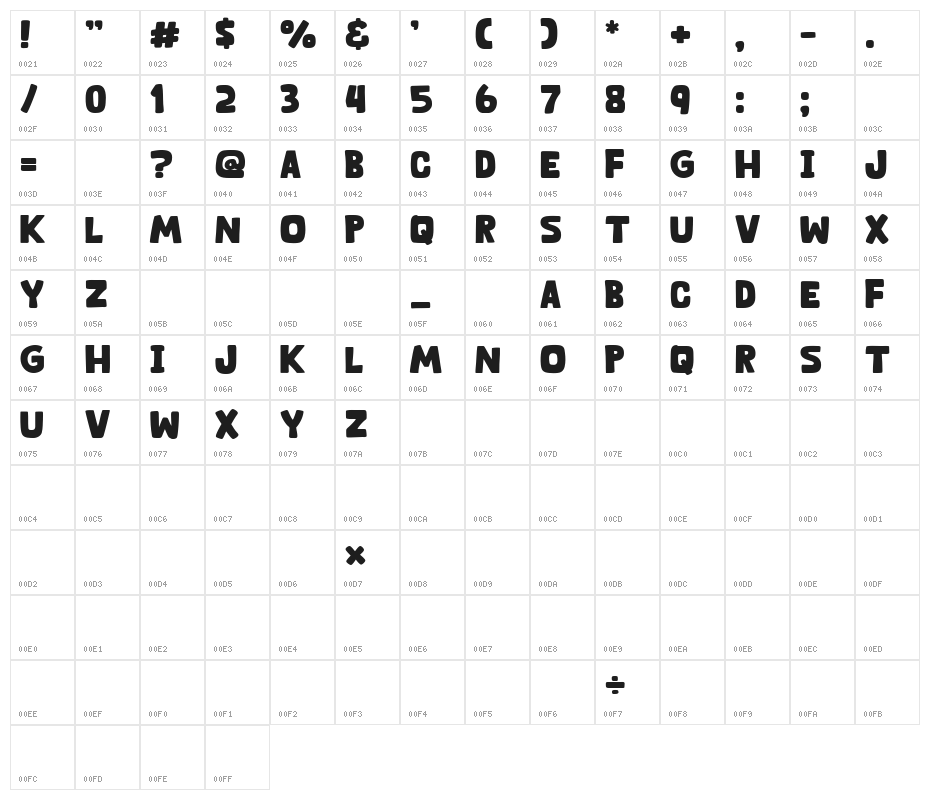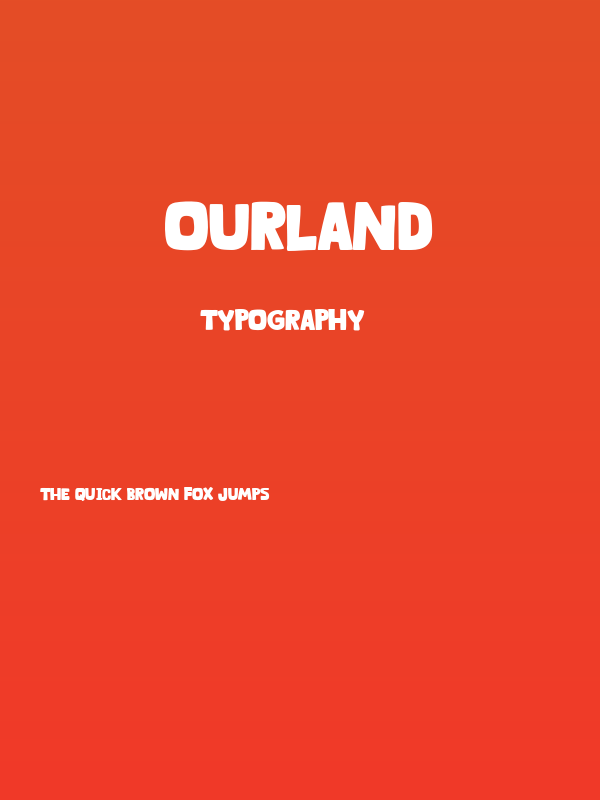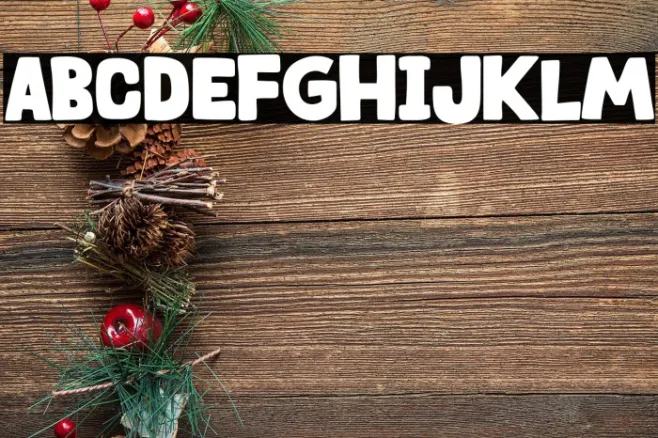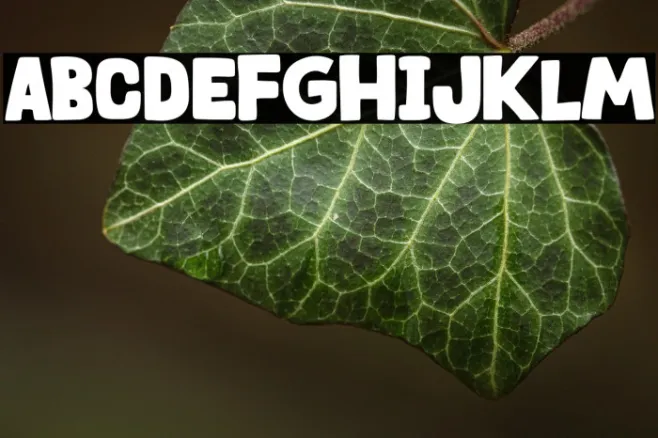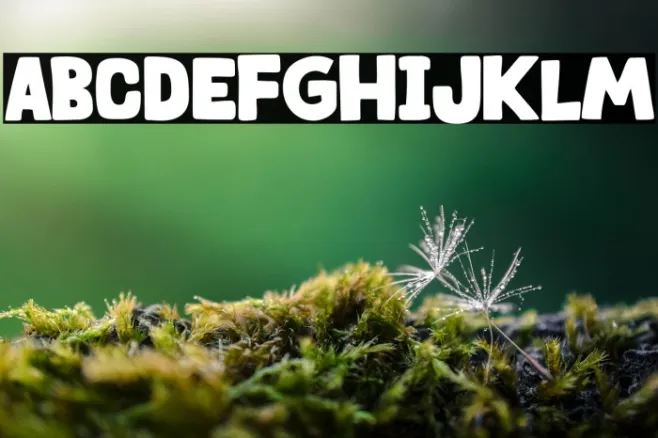
Ourland Font
Ourland Description
This font features bold, rounded characters with a playful and friendly appearance. The letters are thick and have a slightly irregular shape, giving them a hand-drawn feel. The uppercase and lowercase letters maintain a consistent style, with wide curves and a strong presence. The numbers and special characters follow the same design principles, ensuring a cohesive look across all glyphs. The overall style is informal and approachable, making it suitable for projects that require a touch of whimsy and creativity.
| Proposed Projects | Ideal for children's books, playful branding, posters, and social media graphics. |